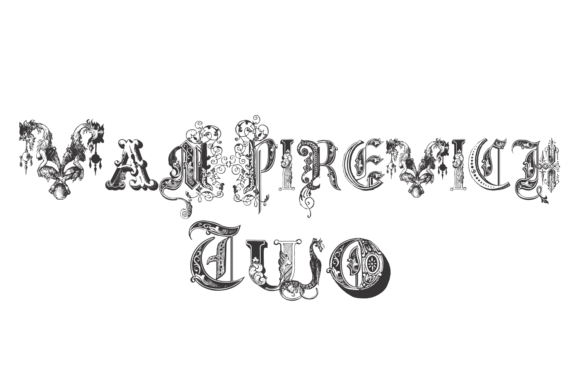
Journey into the world of Vampirevich Family Font, a magnificent display font family born from the creative forge of Intellecta Design. A symphony of decorative letter designs, Vampirevich Versals casts a spell of peculiarity and intrigue, captivating your senses with its creepy allure.
Unleash your creativity with this diverse font family, a perfect companion for crafting spellbinding headlines that command attention. Dive into the depths of its letterforms, discovering the captivating fusion of the classic and the macabre. Each glyph is a work of art, meticulously crafted to transport your designs to a realm of enchantment and mystery.
Embrace the allure of Vampirevich Versals and let your imagination run wild. From haunting Halloween invitations to spine-tingling horror novels, this font family is the perfect choice to add an eerie ambiance to your creative projects. Its versatility extends beyond the realm of the macabre, gracefully adorning elegant branding, sophisticated logos, and eye-catching social media posts.
Elevate your visual storytelling to new heights with Vampirevich Versals. Its eerie charm is sure to cast a lasting impression, leaving your audience spellbound and yearning for more. Step into the world of Vampirevich Family Font and let your creativity take flight. Embrace the darkness, awaken your inner artist, and create designs that will haunt the minds of your audience long after they've encountered them.